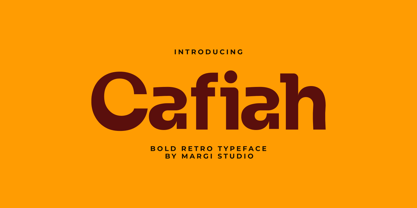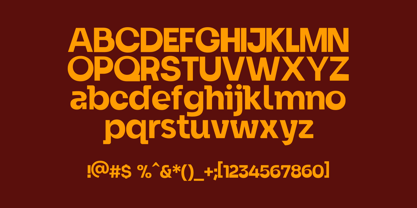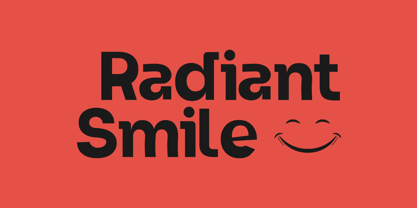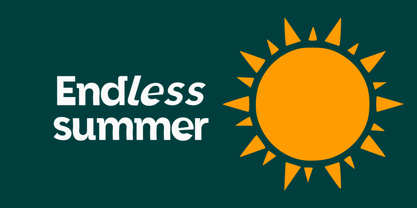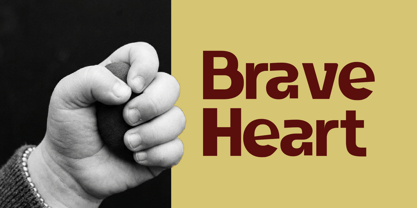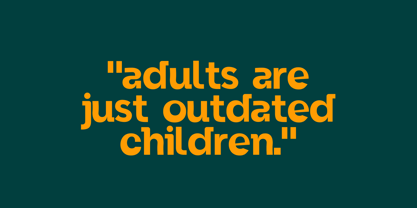
Cafiah
por Margi Studio
A família de fontes Cafiah foi desenhada por Muhammad Amal e publicada pela Margi Studio. Cafiah contém 2 estilos e opções de pacote familiar. Saiba mais sobre esta família
Sobre a família
Make a bold statement with our latest chunky display typeface from Margi Studio. Designed to be unapologetically quirky and undeniably eye-catching, this font blends a retro-modern aesthetic with a highly playful character. It is built to bring a sense of fun, eccentric energy, and confident weight to your most creative design projects.
The Details
What truly sets this typeface apart are its distinctive, heavily stylized letterforms. We’ve combined thick, heavy proportions with sharp, deep joints that mimic exaggerated ink traps. As you look closer, you will notice unique angled terminals, sharp right-angle cuts on the descenders, and dramatically swooping curves that give each individual letter a distinct, rebellious personality.
Best Used For
Because of its bold presence and intricate structural details, this font shines brightest when used at large scales. It commands attention and is the perfect typographic choice for:
• Striking Headlines & Titles
• Impactful Poster Designs
• Short, Punchy Quotes
• Vibrant Product Packaging
• Standout Brand Identities & Logos
Let your designs speak loud and clear—with just the right amount of playful attitude!
Designers: Muhammad Amal
Fundição: Margi Studio